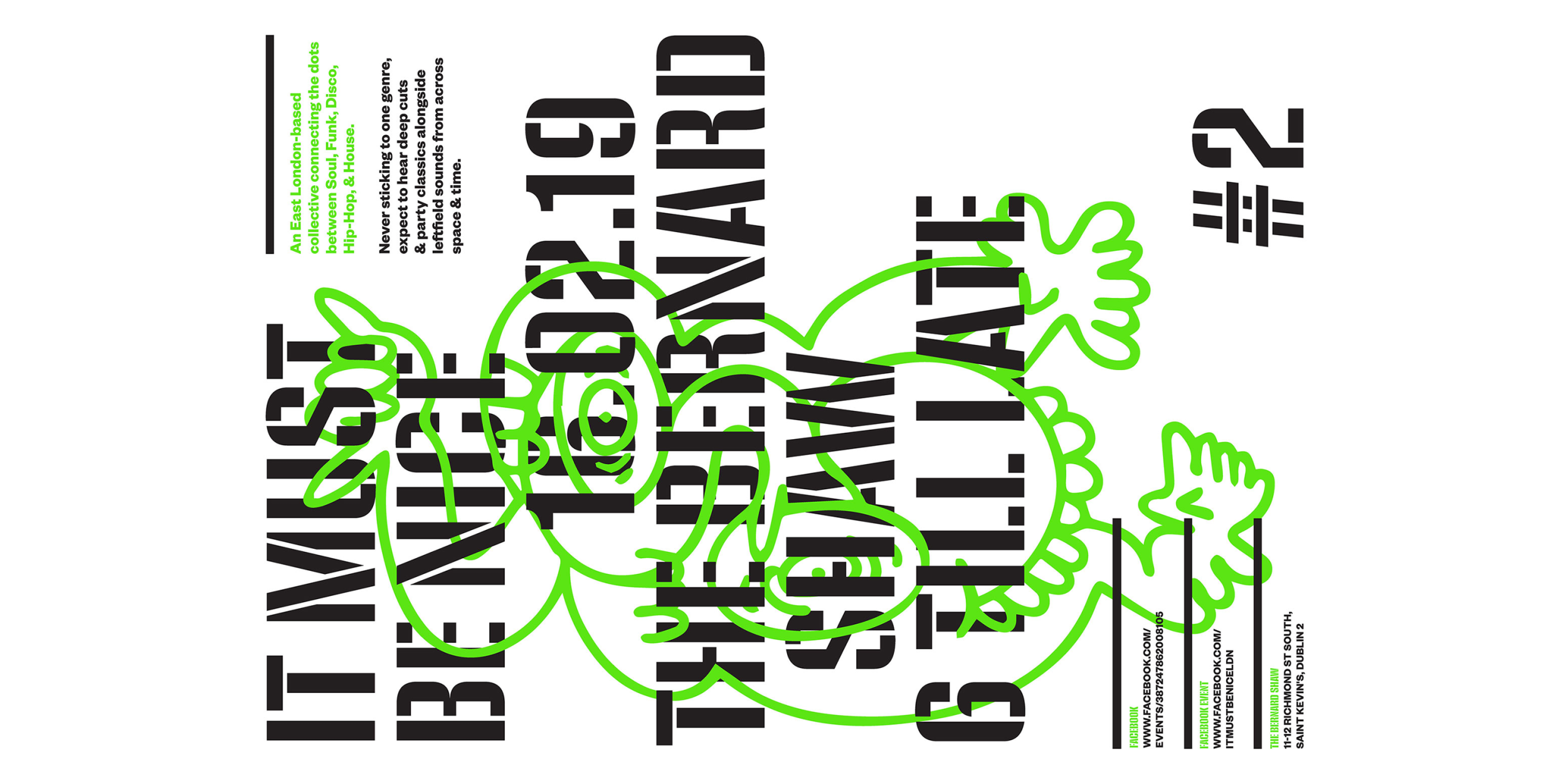
Pressio Stencil
Pressio Stencil brings Pressio’s square counters and superelliptical curves to the stencil genre. The result is Mid-century Modern with a touch of packing crate. With four widths and five weights, it’s far more versatile than most stencil families. The clarity of its construction makes it surprisingly legible in text sizes. Like its solid sister, it includes a set of stylistic alternates to round off some of the unexpectedly sharp corners of letters like S, s, and a. And, of course, it features case-sensitive punctuation and delimiters, as well as support for over 130 languages.